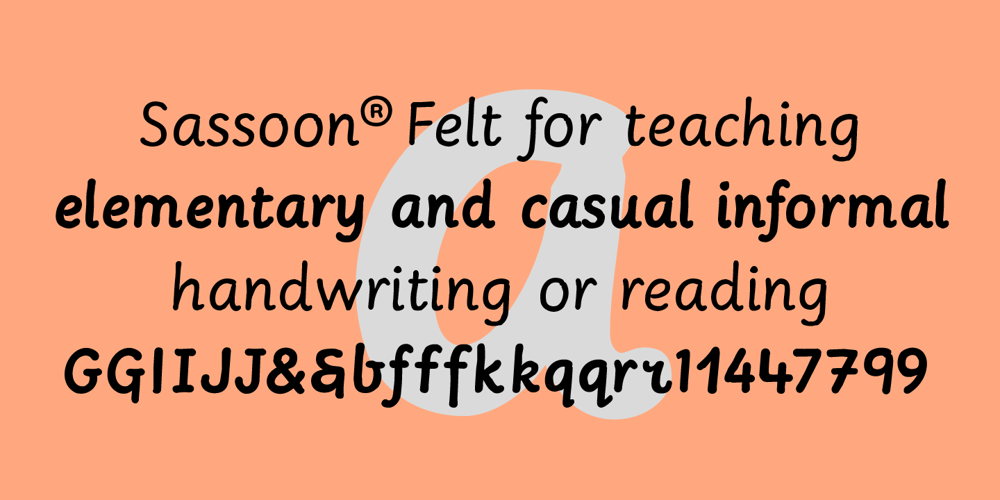
Sassoon Felt Font Family was designed by Rosemary Sassoon and published by Sassoon-Williams. Sassoon Felt contains 2 styles and family package options. Sassoon Felt’s more casual letterforms can be used either as informal text or for the teaching of reading and handwriting; having the letterforms most taught in UK schools. These fonts are an educators alternative to Comic Sans (from Microsoft) and Chalkboard (from Apple), which are more appropriate for ‘Print’ style writing in United States Elementary schools and may also be appropriate for parts of Australia, which can be identified usually by crucifix t, diagonal y downstroke, short f, two-stroke and there may be more. Free to download resources: How to access Stylistic Sets of alternative letters in these fonts